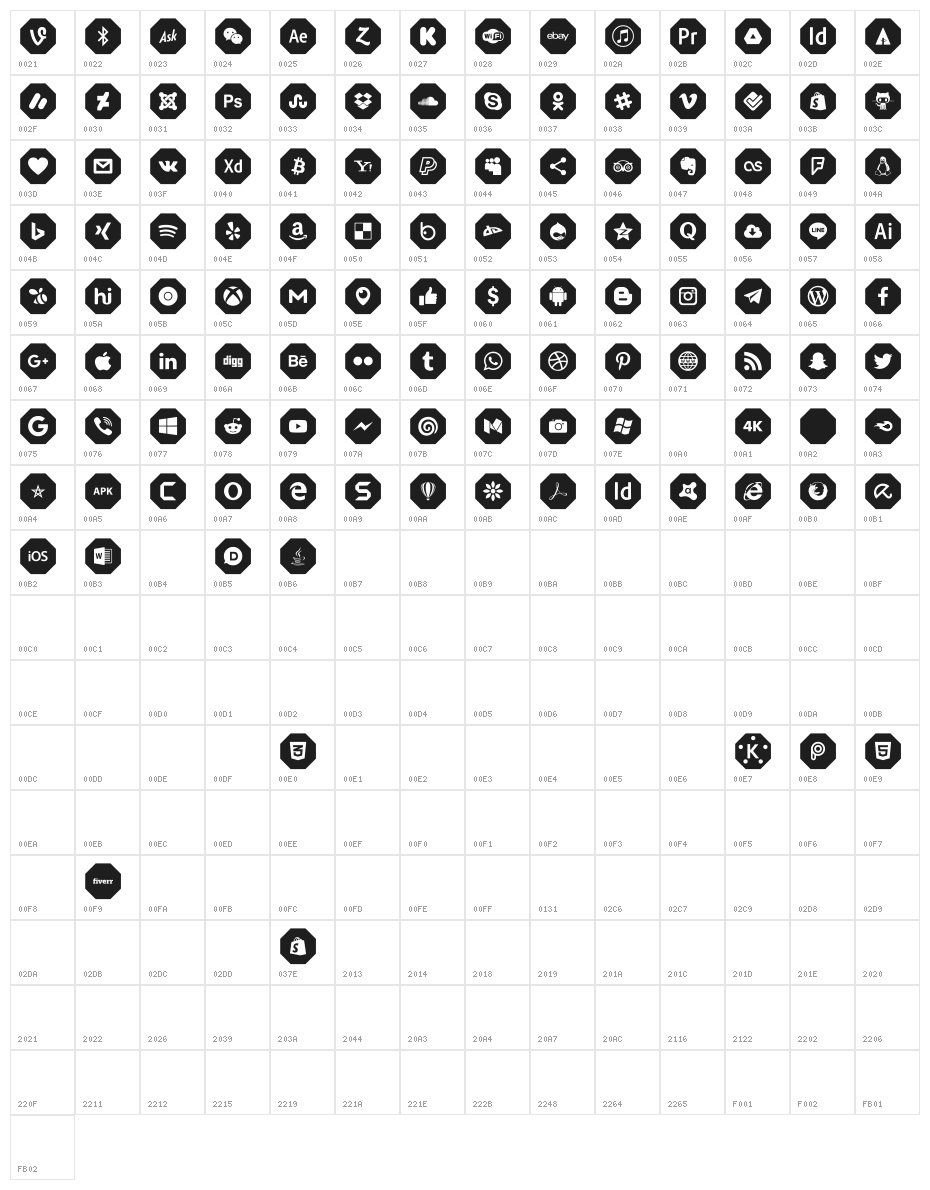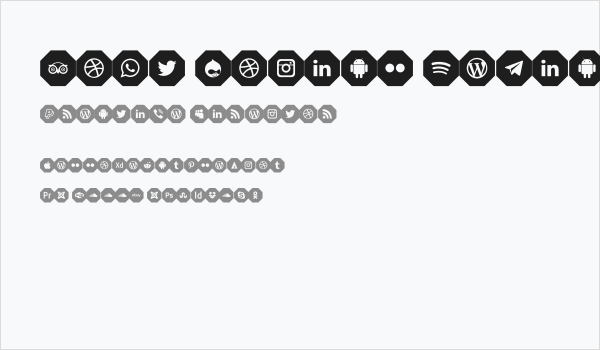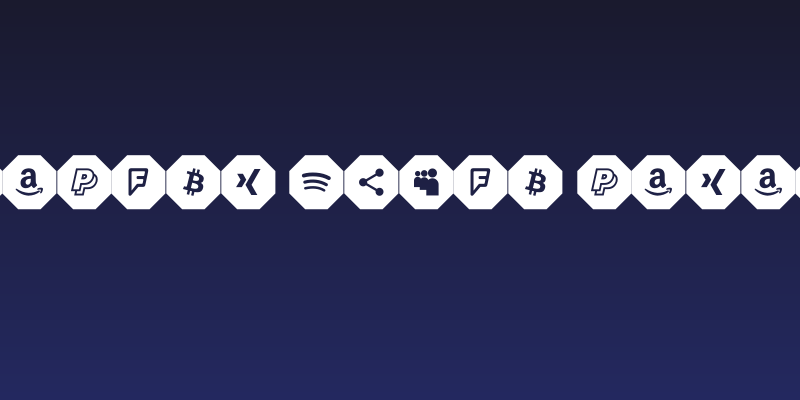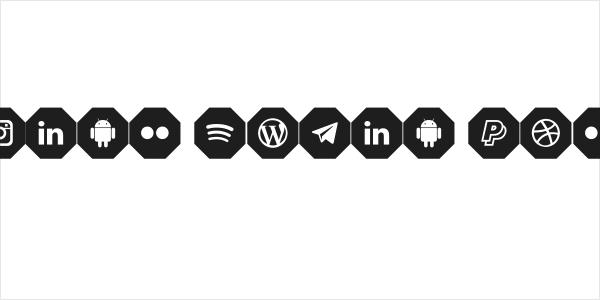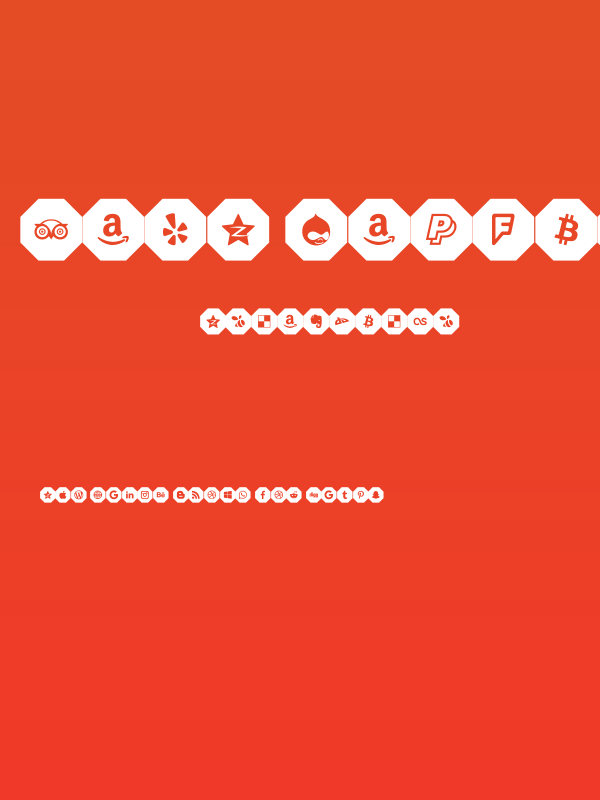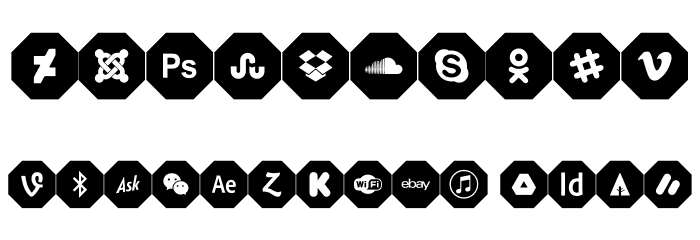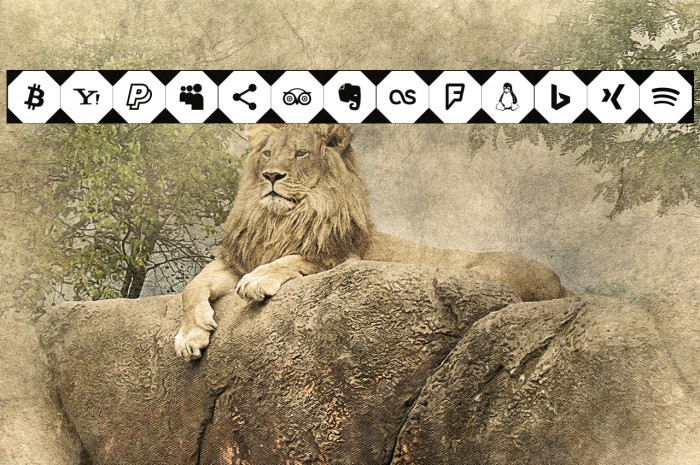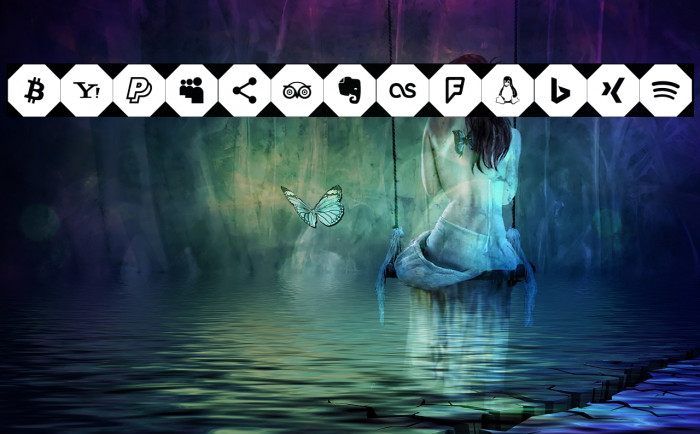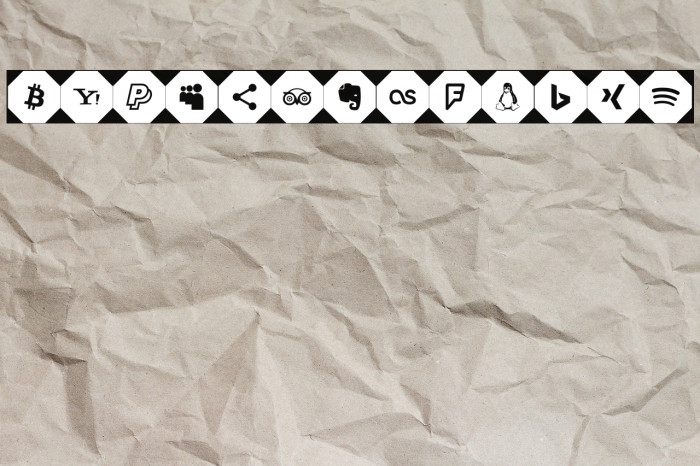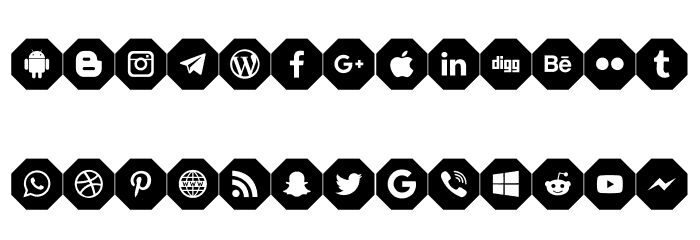
Font Social Media Color 2019 Font
Font Social Media Color 2019 Description
A collection of social media and tech brand icons displayed in white on black octagonal backgrounds, designed as a pictogram or icon font set rather than a traditional alphanumeric typeface.
| Overall Style | Modern, Minimalist, Iconic |
| Use Case | Icons, UI elements, Social media links, Branding |
| Proposed Projects | Websites, app interfaces, social media graphics, presentations, branding materials. |